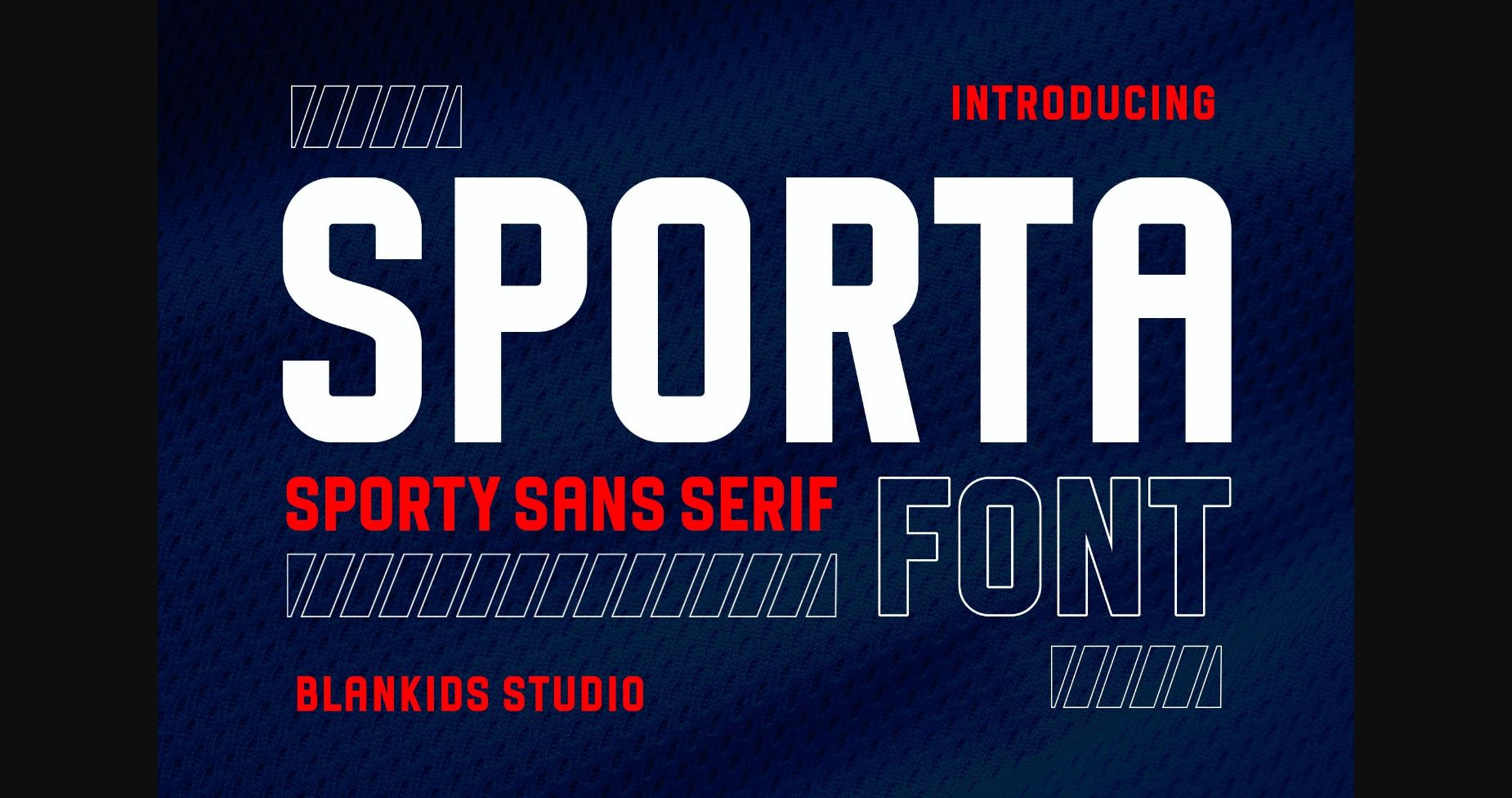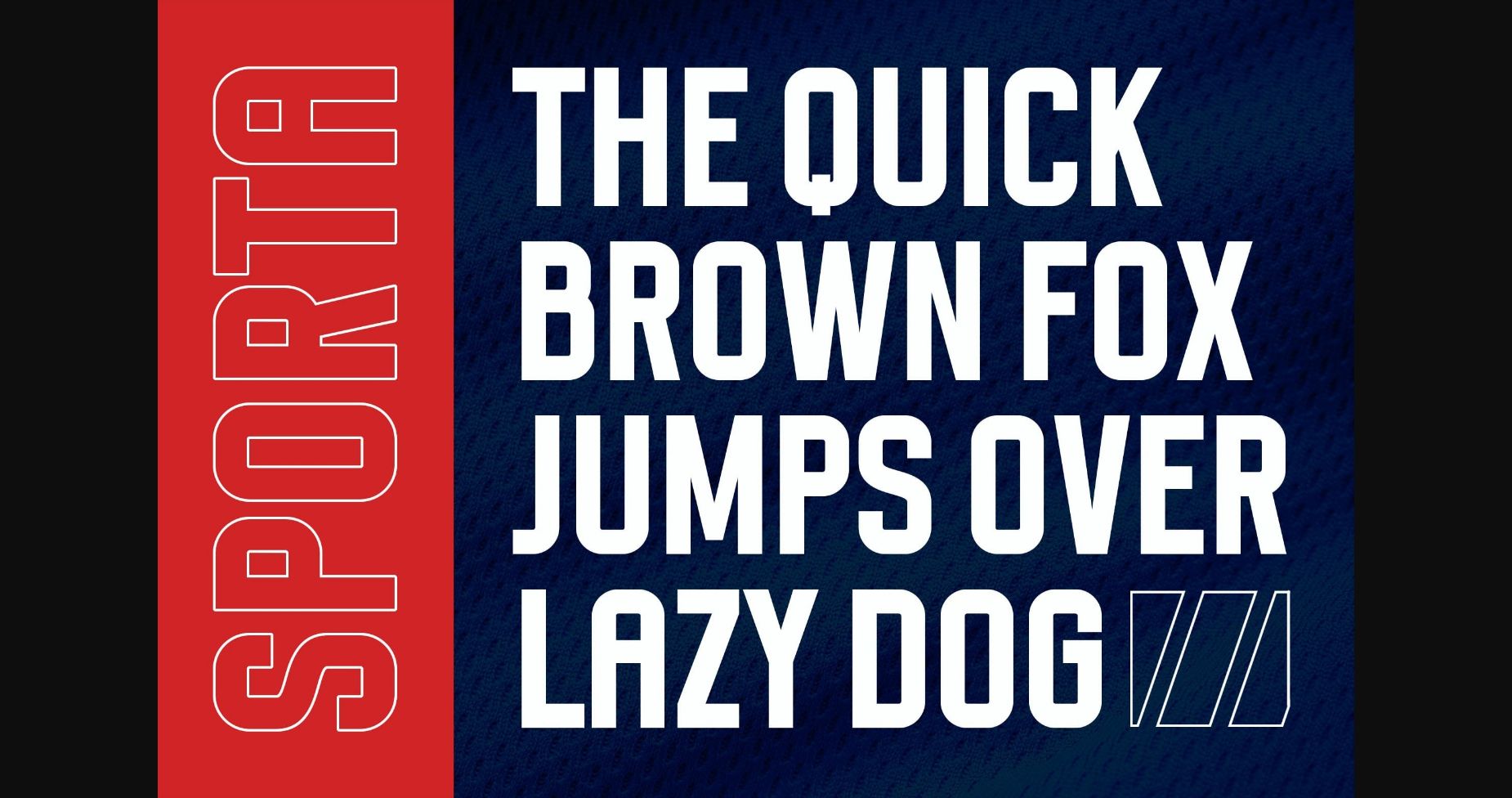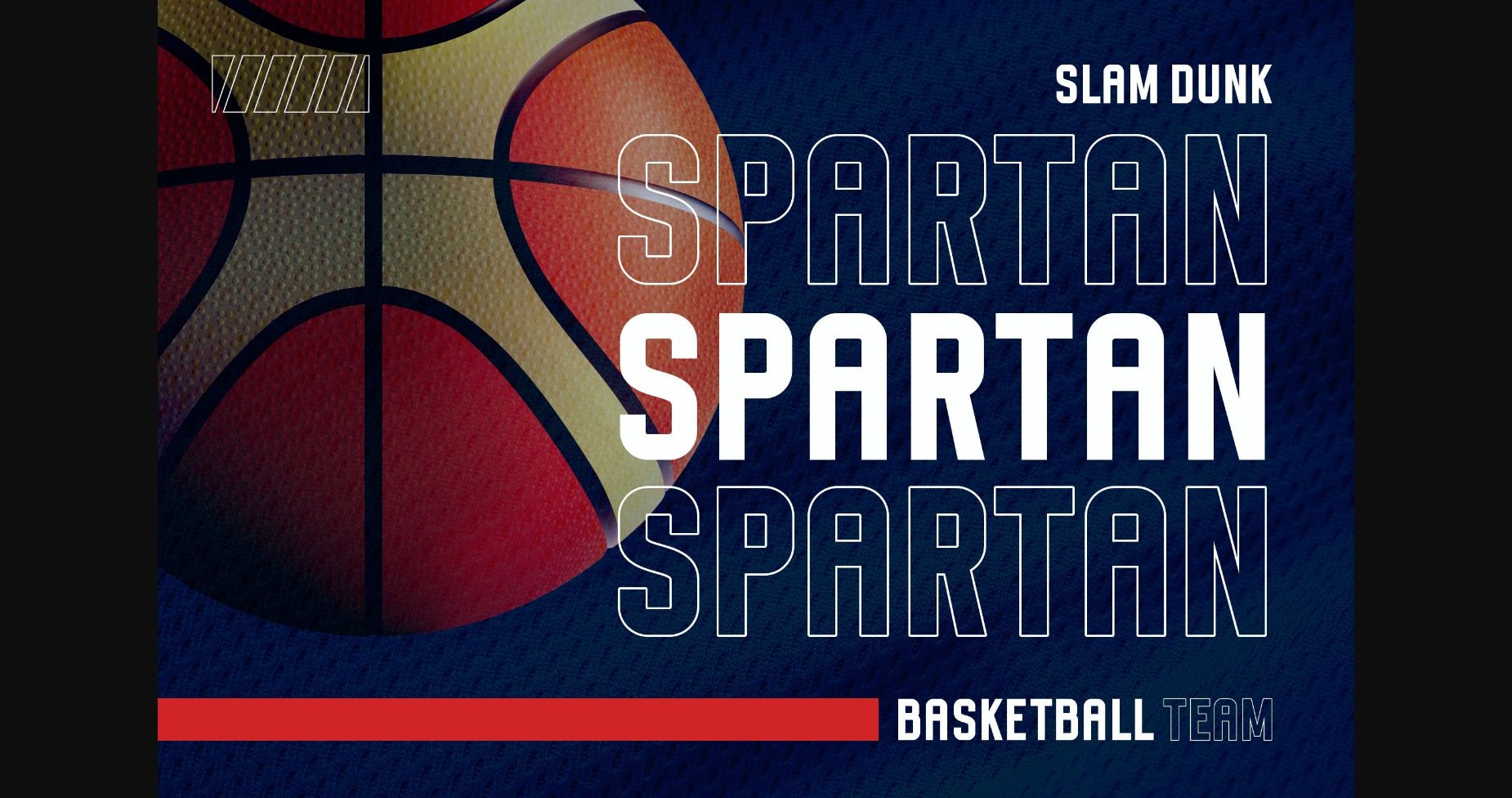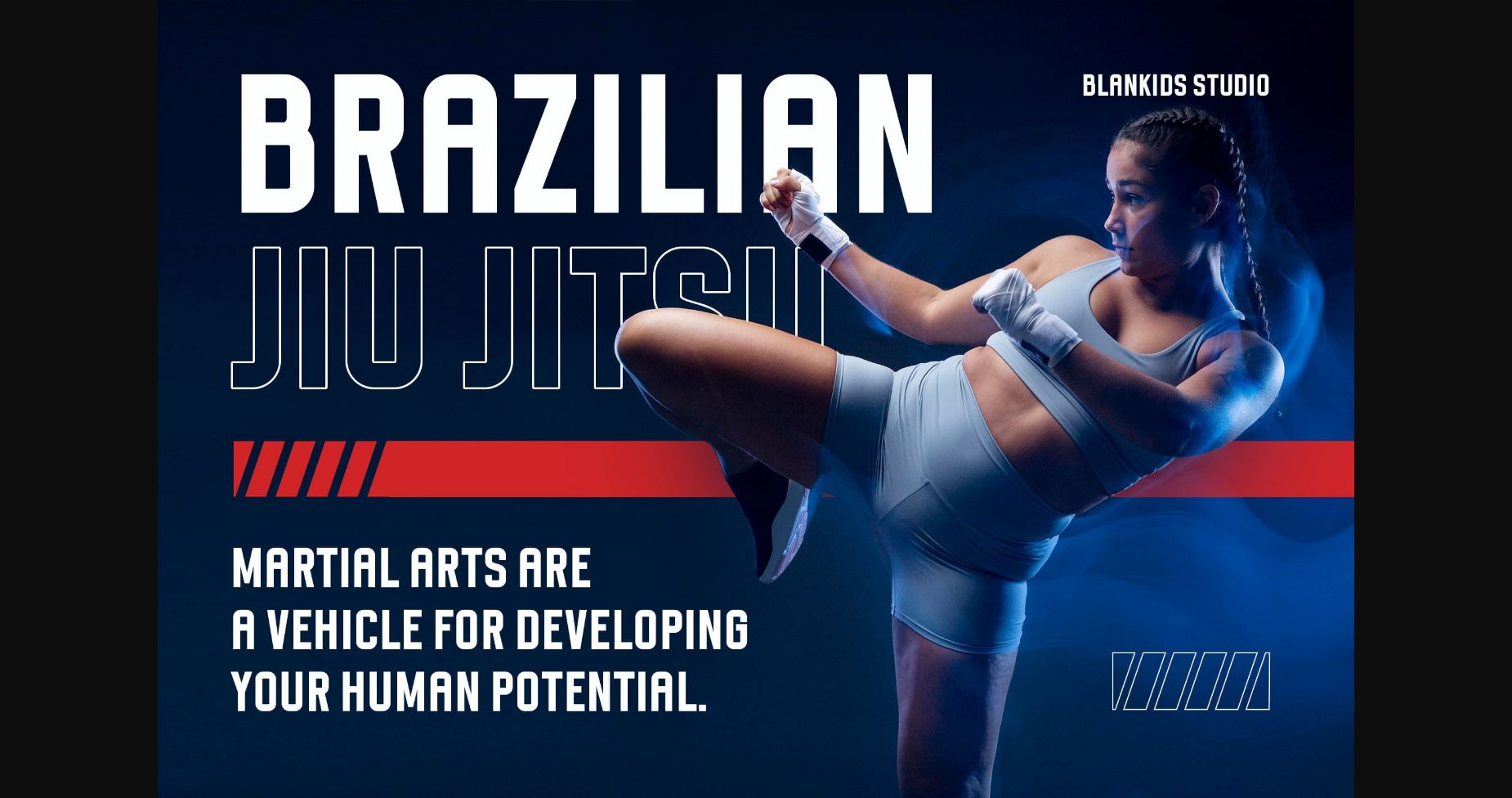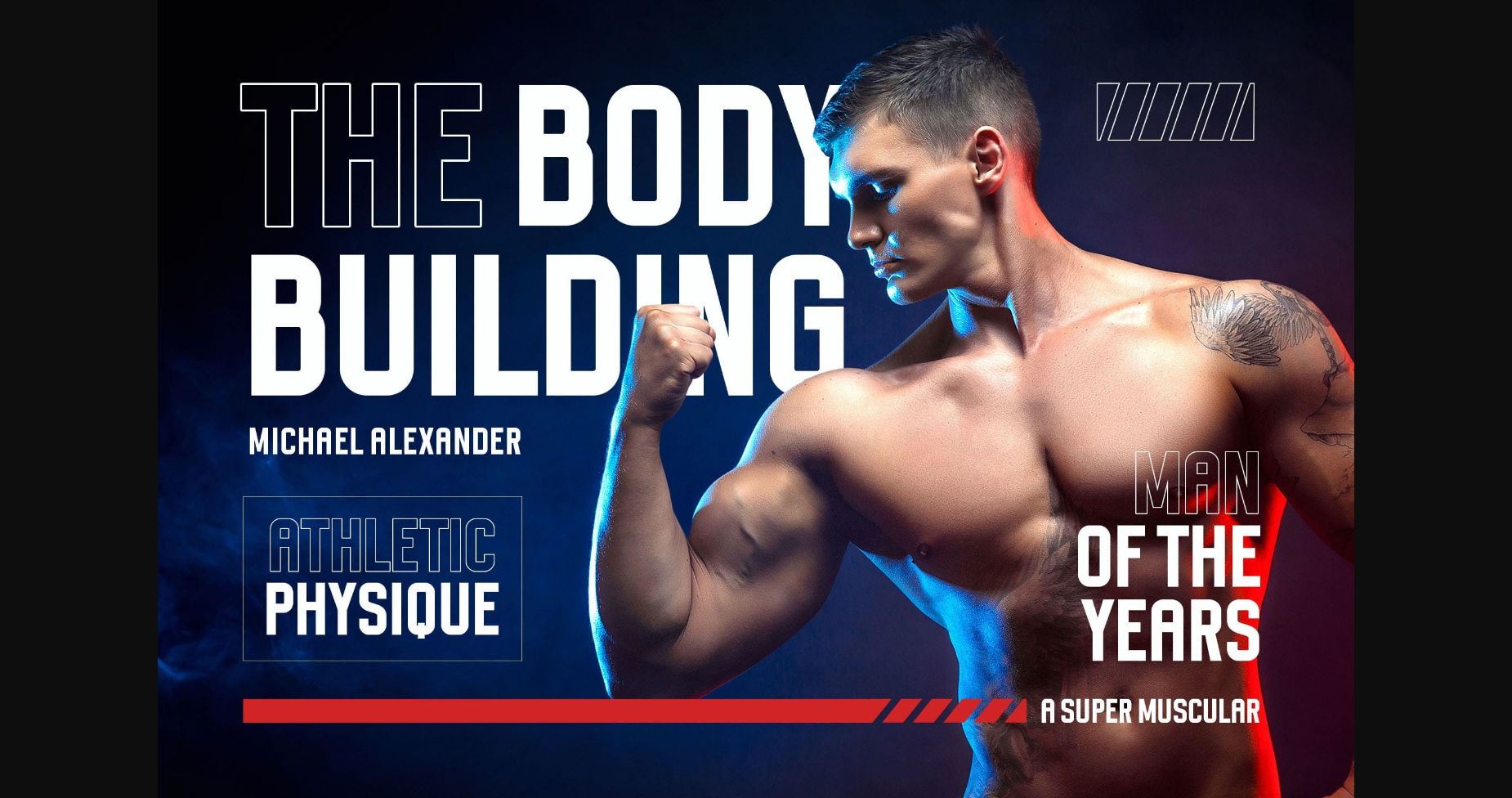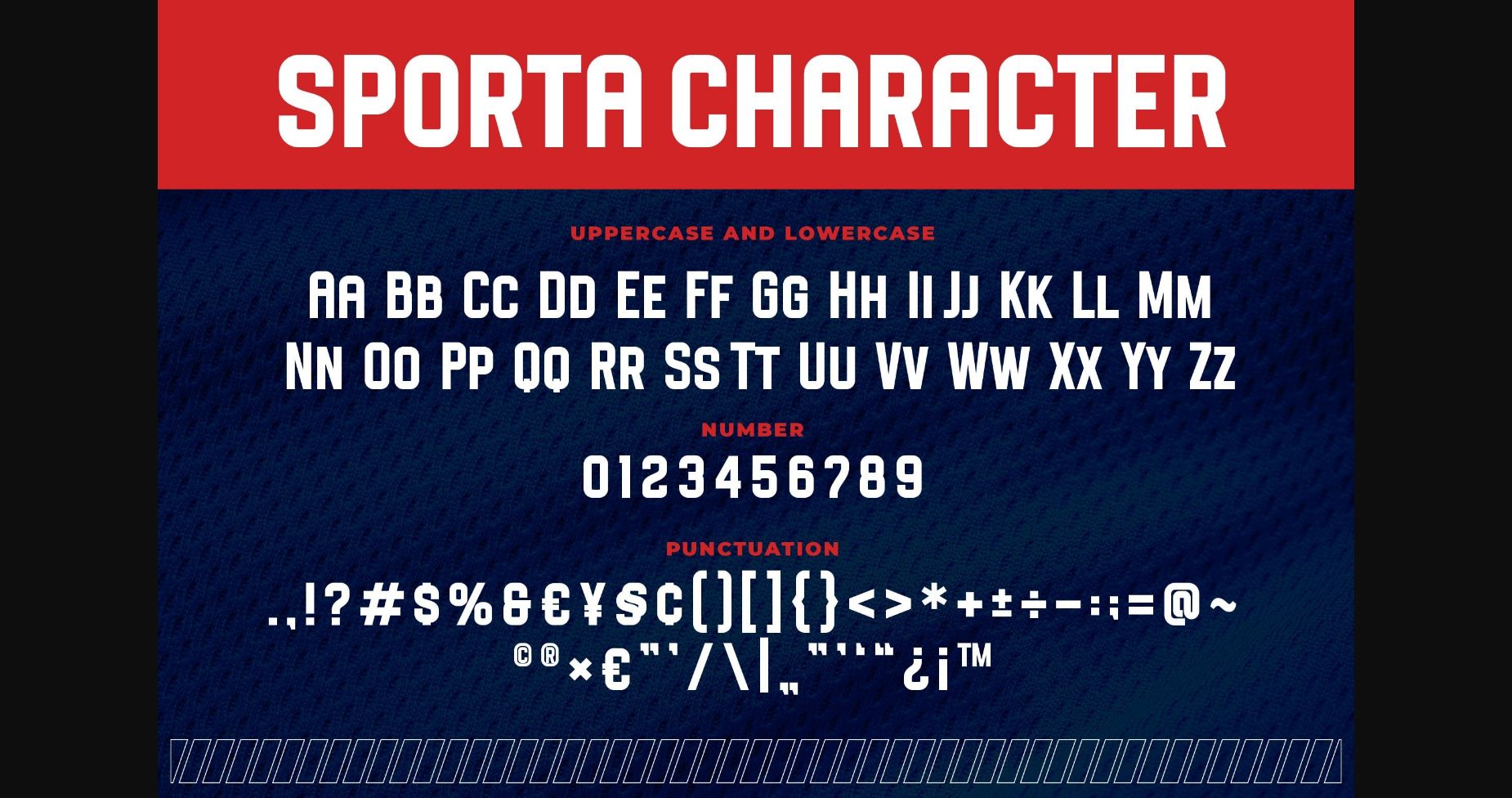
HomeSans Serif FontsSporta Font Sans Serif Fonts Sporta Font FacebookXPinterestWhatsApp 1 of 8 ... Sporta Font Poster 2... Sporta Font Poster 3... Sporta Font Poster 4... Sporta Font Poster 5... Sporta Font Poster 6... Sporta Font Poster 7... Sporta Font Poster 8... About Sporta Font Sporta is a strong, masculine, bold sans serif font. It works great as a display typeface for posters, headlines, banners, and more! DOWNLOAD NOW People also explored Sanzen Font Summer Holiday Font The Quiet Nite Font Oceania Font Scarlet Pen Font Second Chance Font Lafbeth Font Gin Halloween Skull Font 306 0 TagsSportaSporta Font Previous articleBegab Stencil FontNext articleTroglen Sans Font LEAVE A REPLY Cancel reply Comment: Please enter your comment! Name:* Please enter your name here Email:* You have entered an incorrect email address! Please enter your email address here Website: Save my name, email, and website in this browser for the next time I comment. Personal Use Free GoodFay Personal Use Free Read more about this font Earwig Factory Personal Use Free Read more about this font Milda Personal Use Free Read more about this font Vincent Familiante Personal Use Free Read more about this font BLOG To increase your work productivity, choose the most readable fonts. In today's fast-paced work environment, where digital communication and information consumption are integral to our daily routines, the choice of fonts can significantly impact... Modern Sans-Serif Fonts That Brands Love in 2025 The 10 Best Handwriting Fonts to Add Personality to Your Designs 5 Fonts That Will Dominate Design Trends in 2026